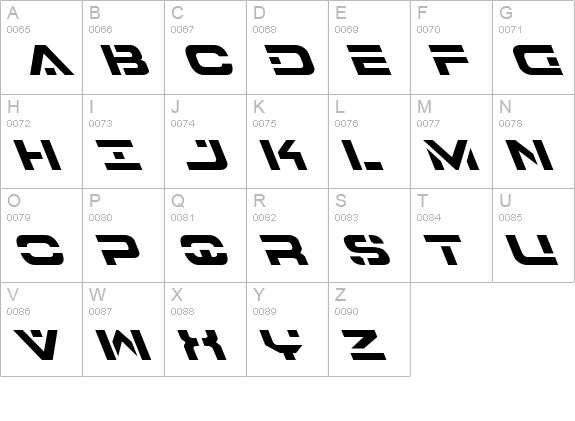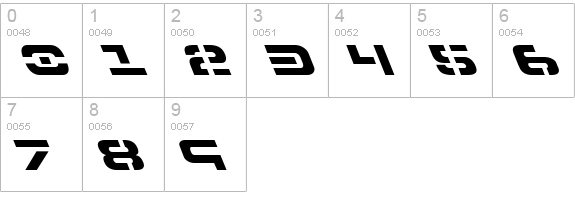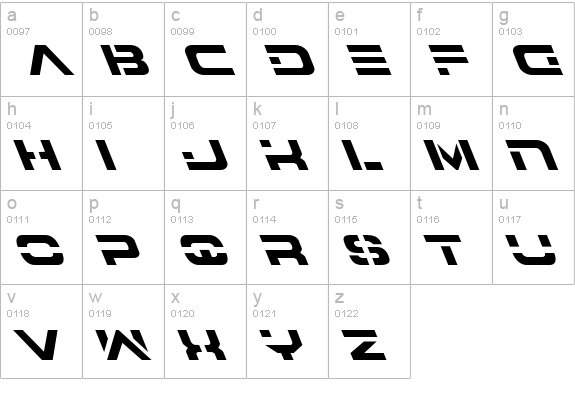
Introducing 7th Service Leftalic font, a sleek and modern typeface designed to make a statement. With its unique left-leaning italic style, this font exudes elegance and sophistication. Perfect for adding a touch of flair to your designs, whether for print or digital media. Best of all, 7th Service Leftalic font is free to download at FontsMarket.com. This means you can easily access this stunning font and use it in your projects without any cost. Don't miss out on the opportunity to elevate your designs with this stylish and versatile typeface. Download 7th Service Leftalic font today and let your creativity shine!